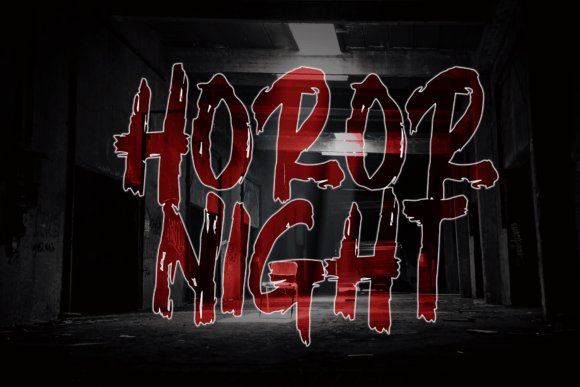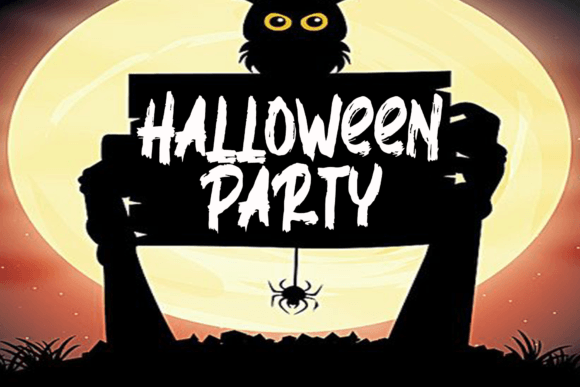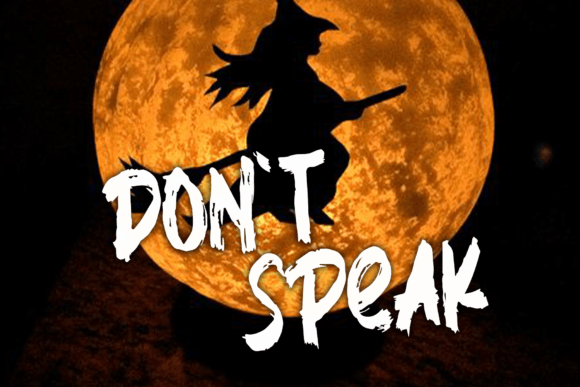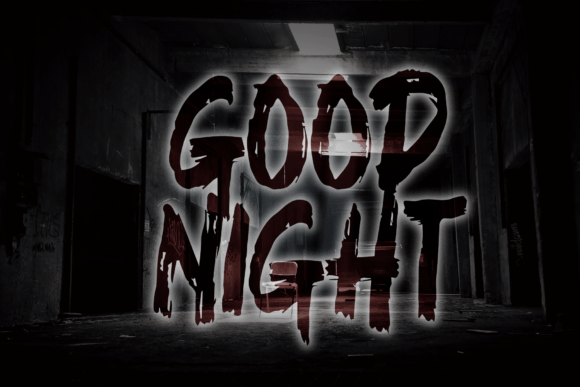
Black Scary Font – Free Download
Introduction to Black Scary Font
Black Scary is a festive and happy typeface that captures the spirit of the holiday season.
| 👤 Author | Black line |
With its decorative elements and unique flair, it adds a touch of charm to your designs Perfect for greeting cards, gift labels, and holiday-themed projects, this font brings a cheerful and nostalgic atmosphere to your words.
Key Features of Black Scary Font
Why Choose Black Scary Font?
Black Scary Font offers exceptional quality and versatility, making it a valuable addition to your design toolkit. Whether you’re creating for personal projects or commercial use, Black Scary Font delivers professional results.